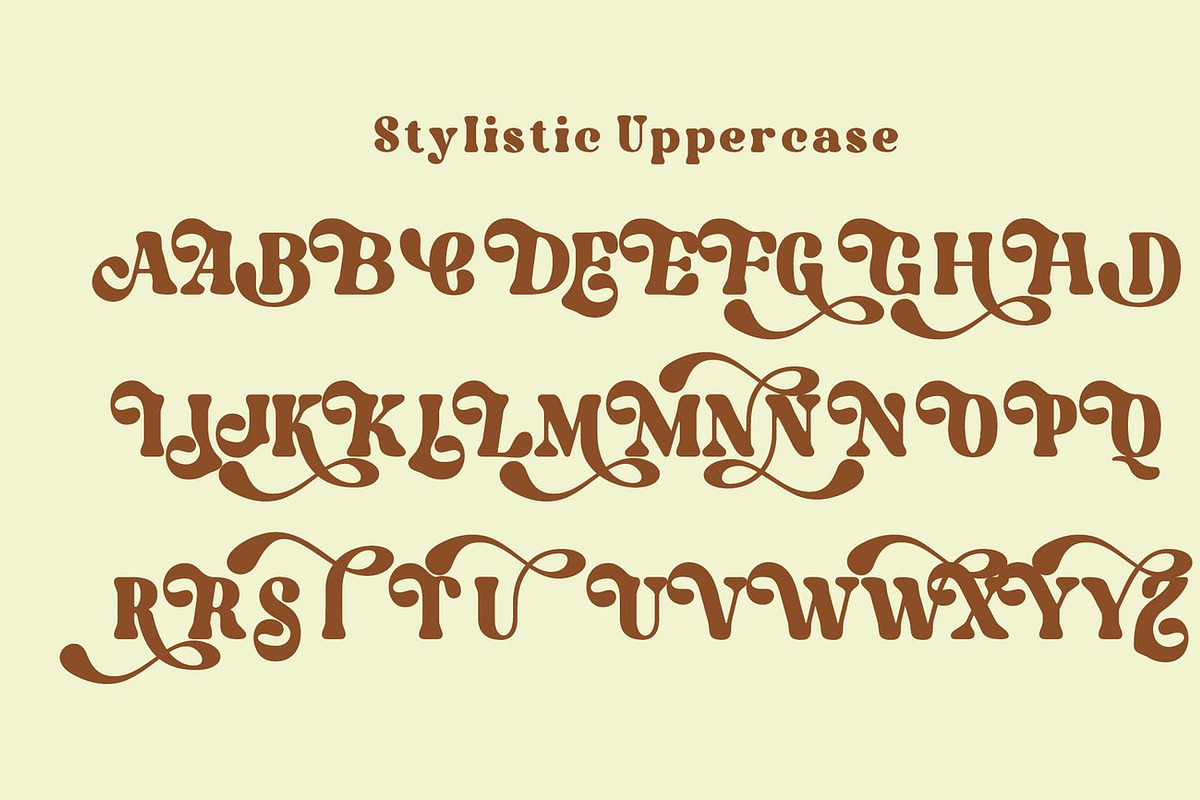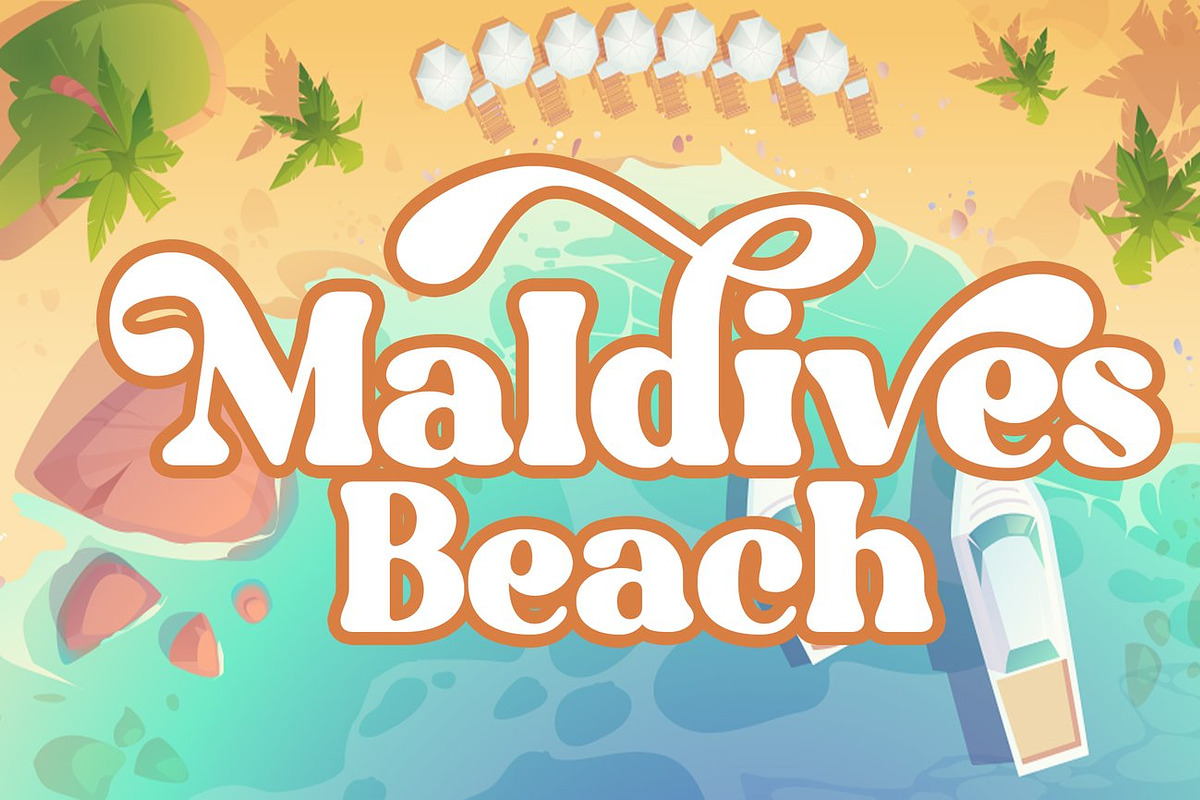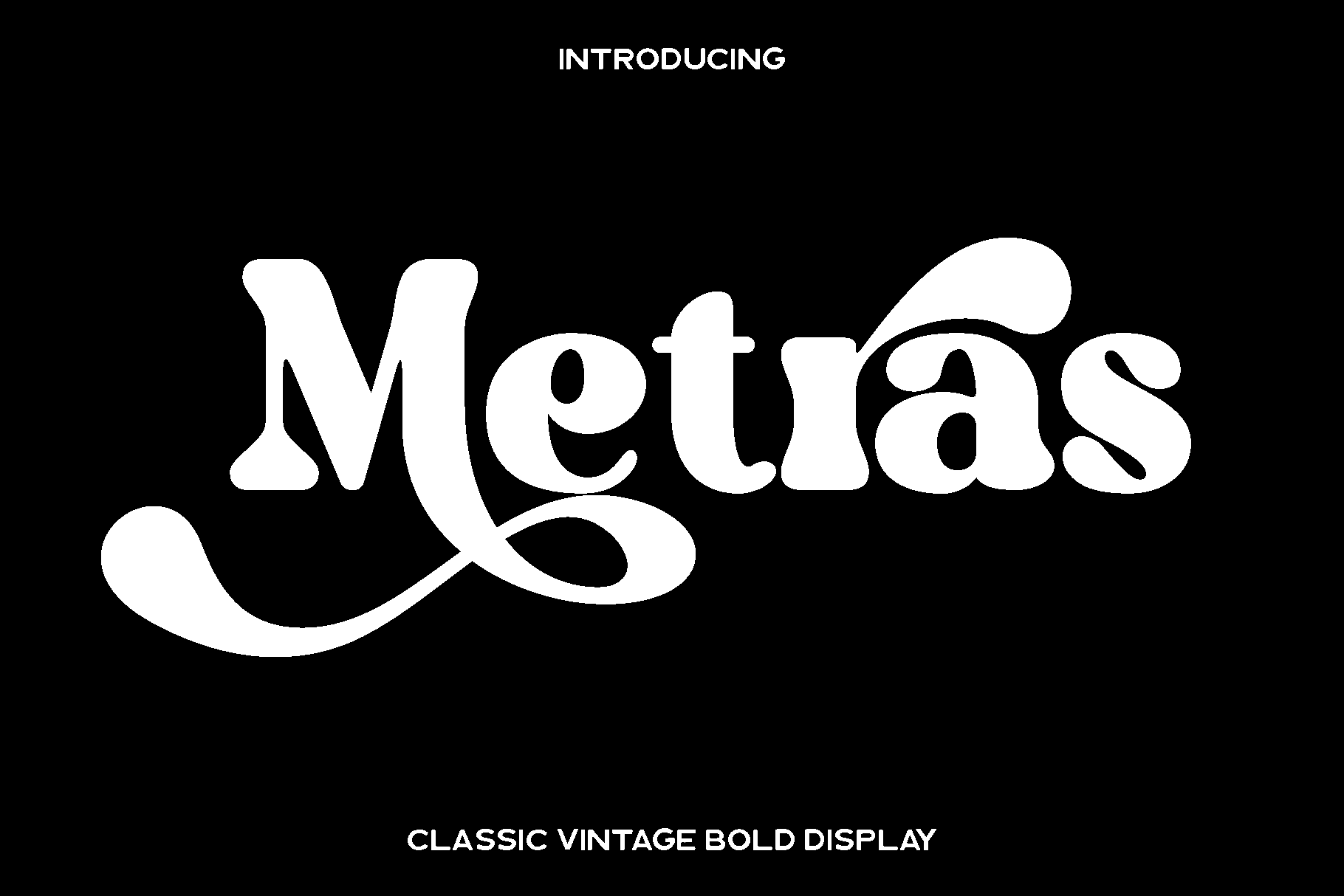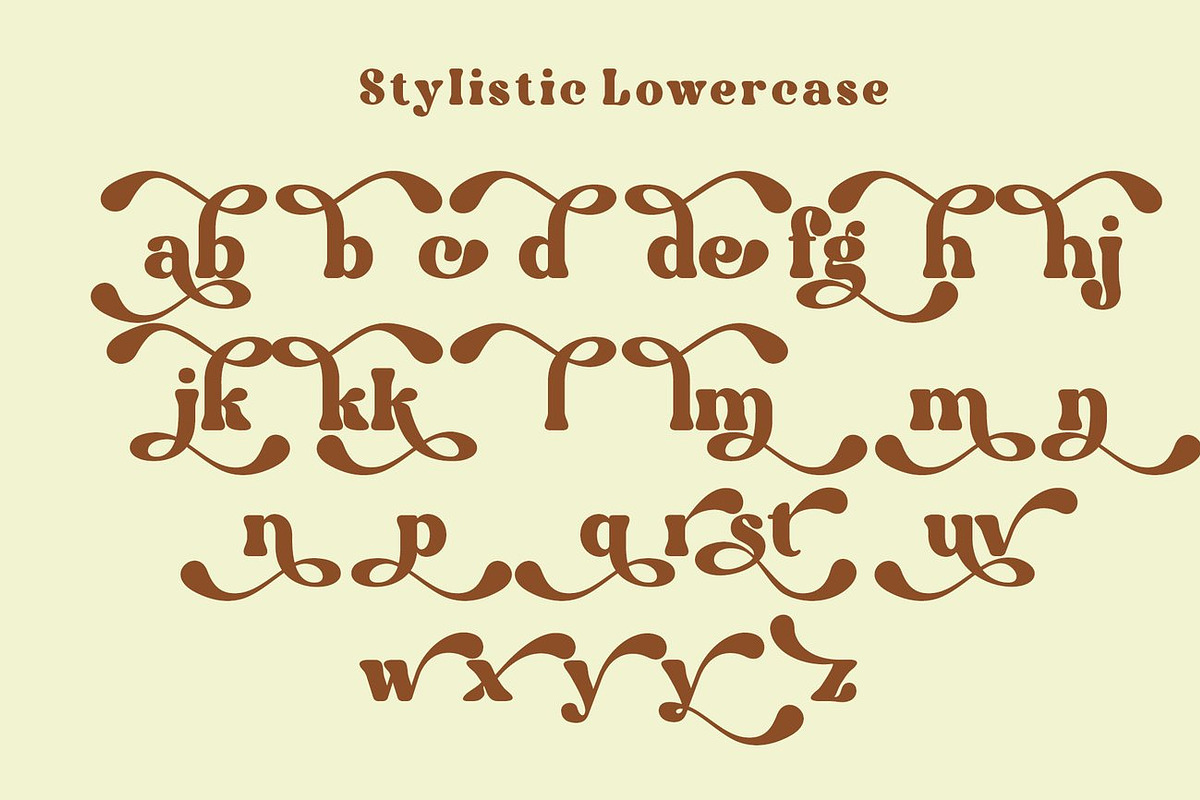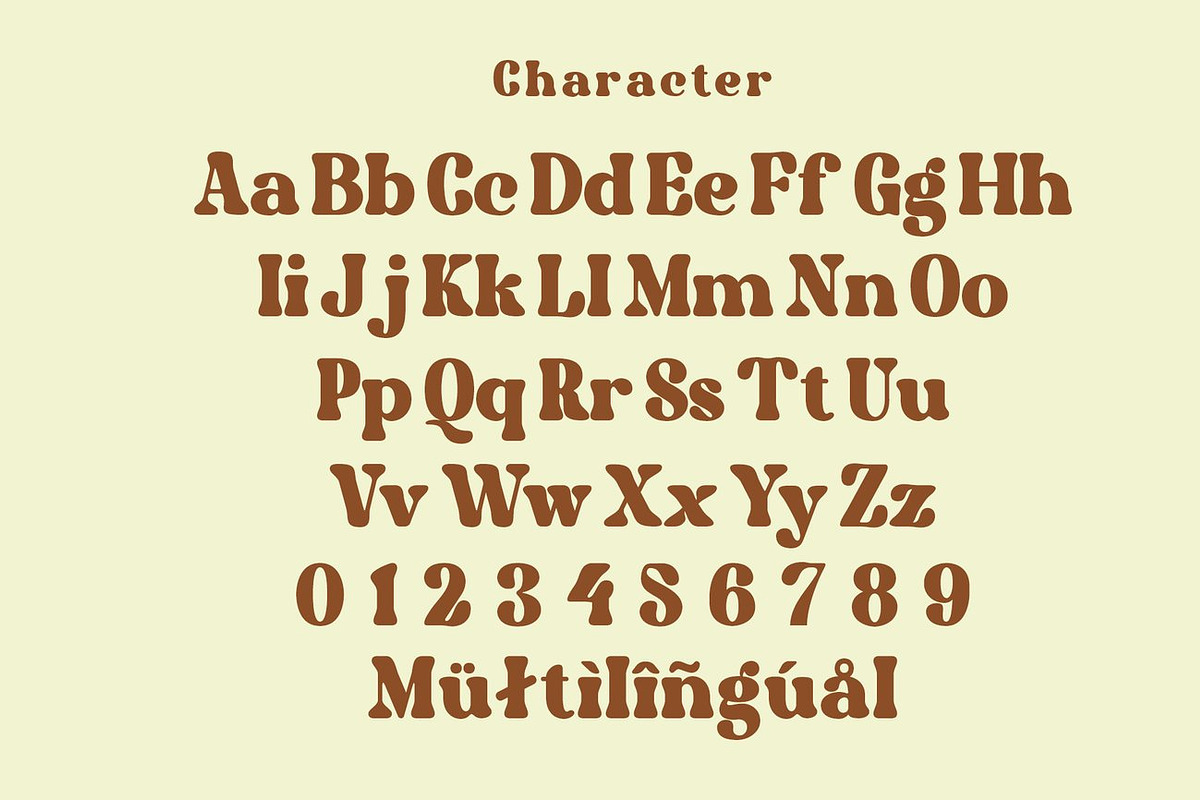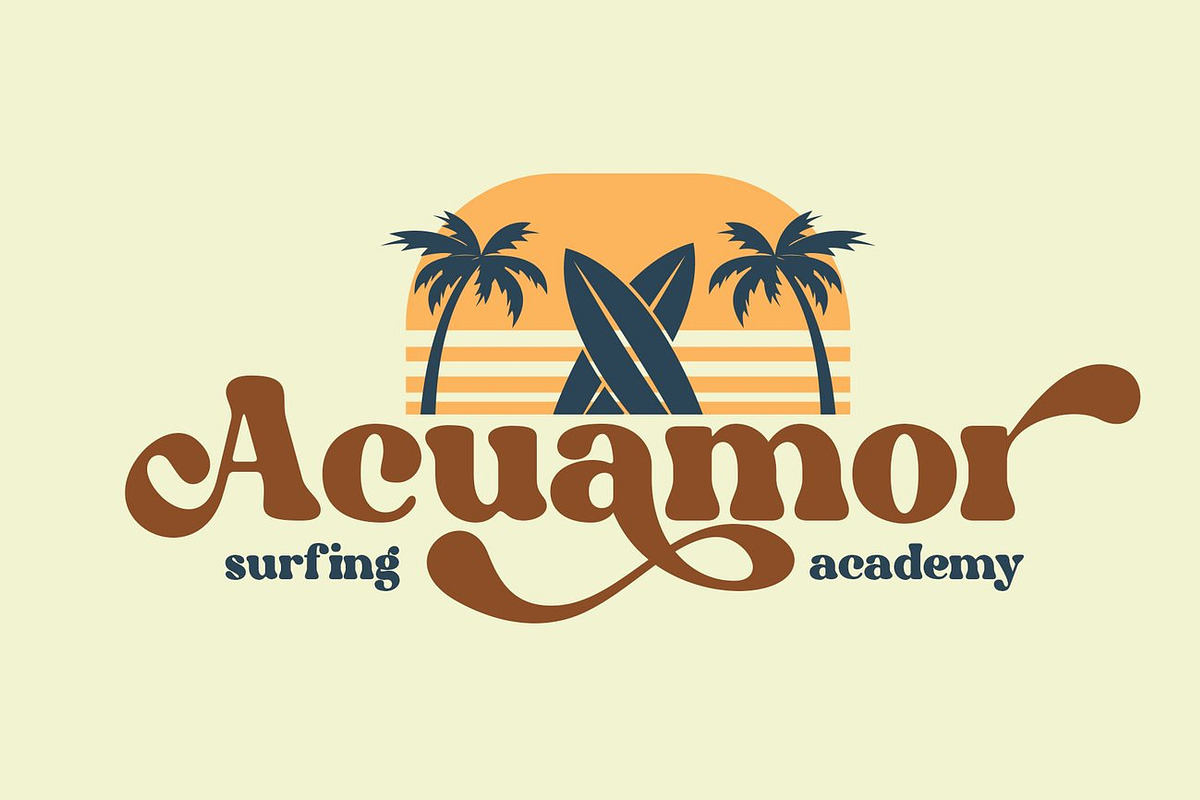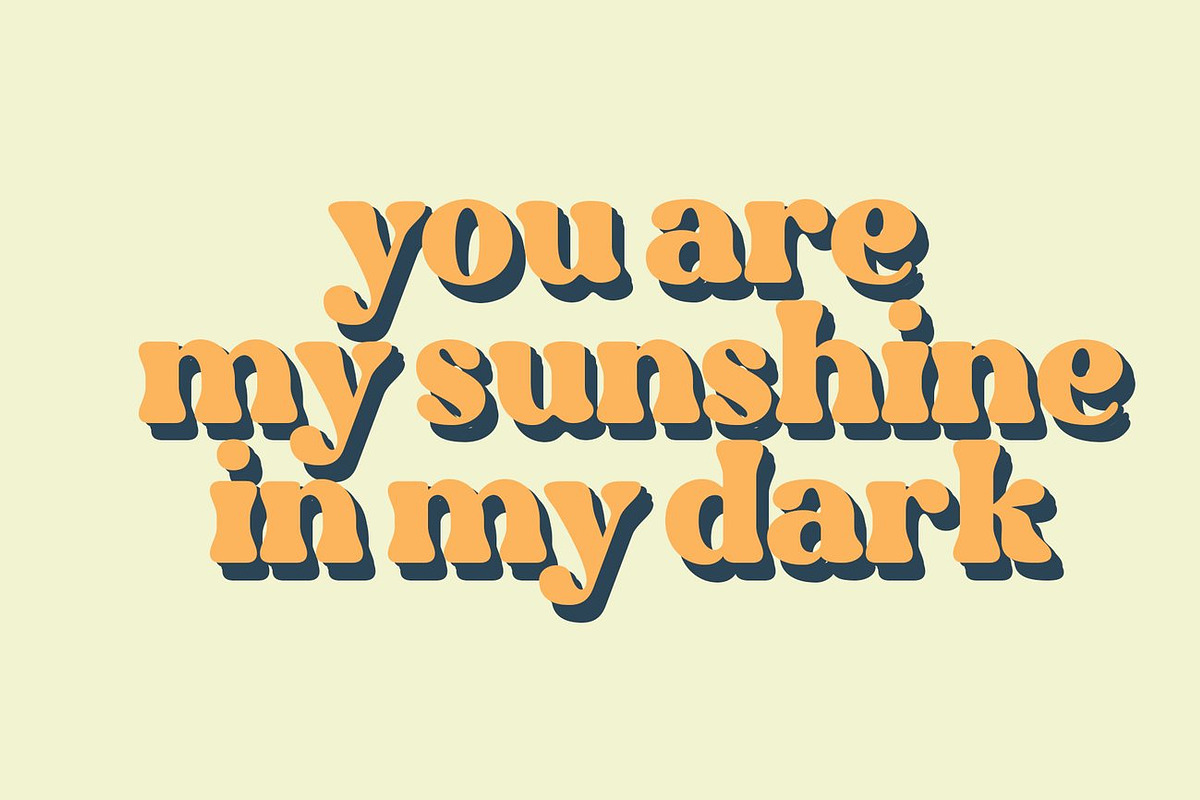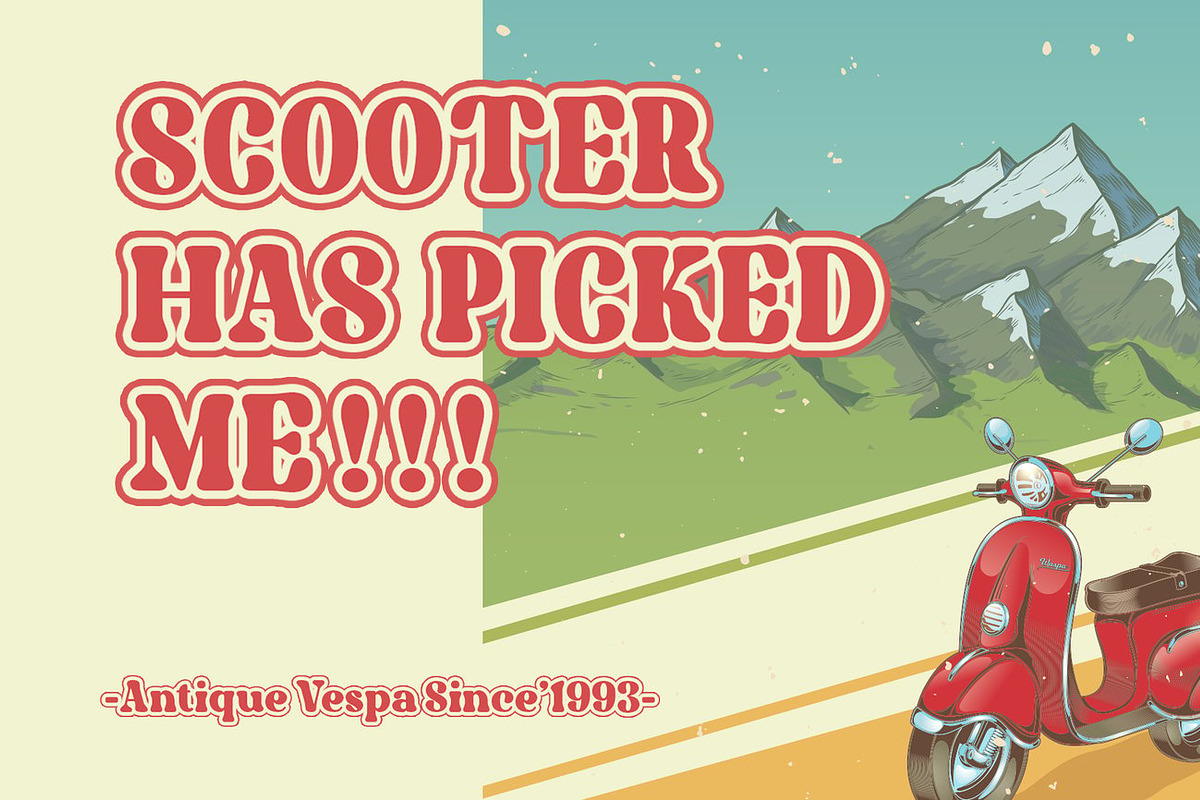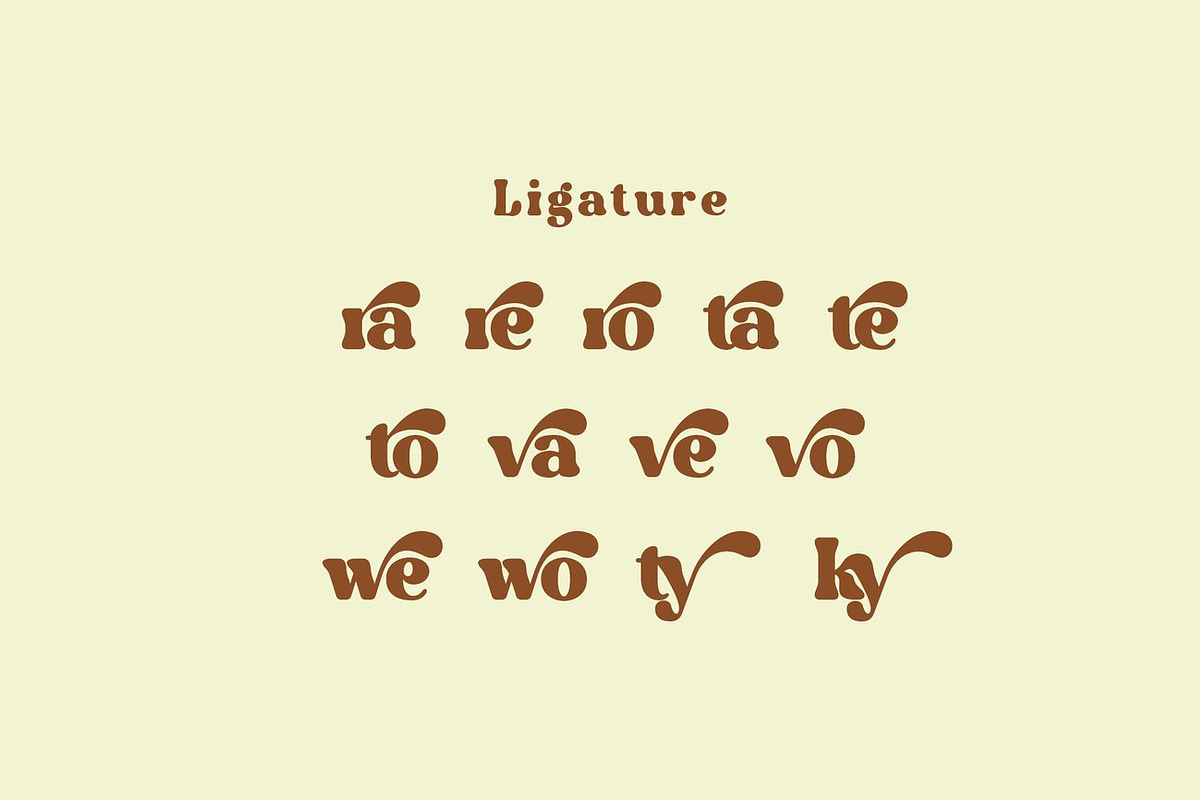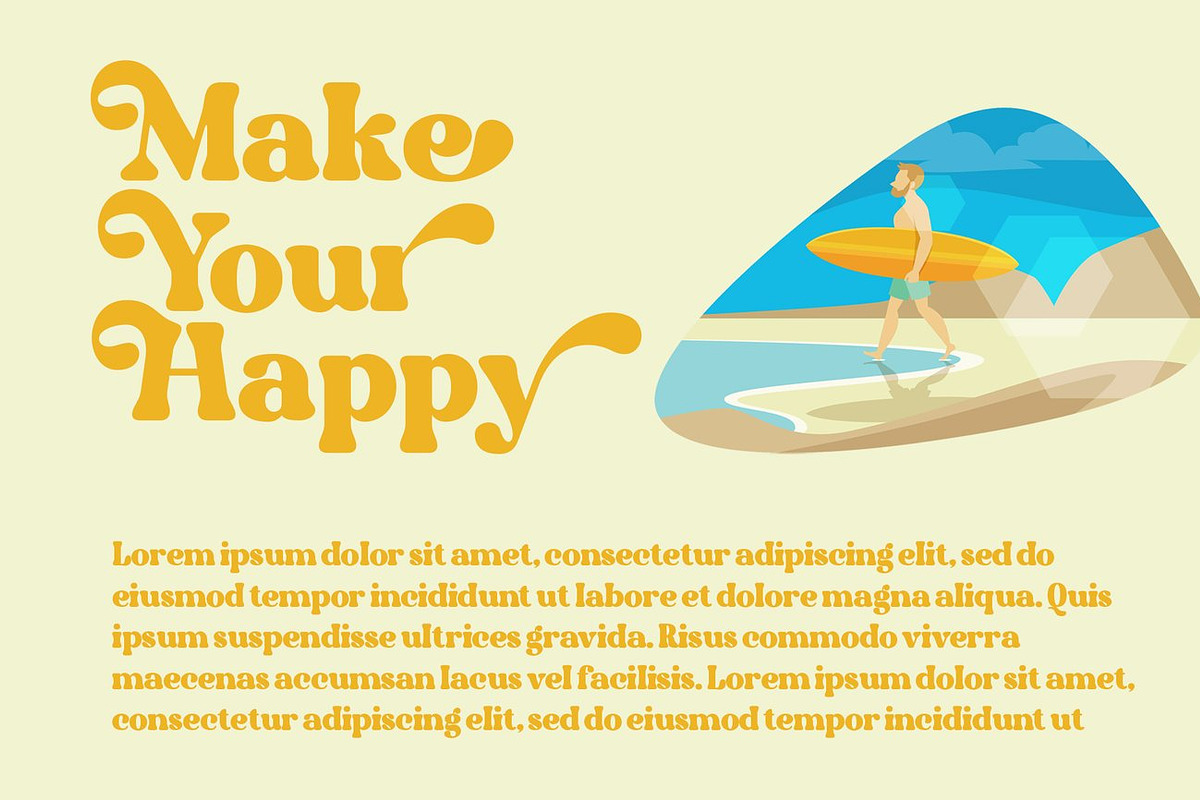
Metras - Classic Bold Font
Metras is a bold display font inspired by classic typography and timeless vintage design. Created to bring strong character and nostalgic charm into modern projects, Metras blends retro influence with solid letter construction that feels confident, expressive, and eye catching. Every glyph is carefully shaped to deliver a bold visual impact while maintaining balance and readability, making it a powerful choice for statement driven designs.
This font shines in branding, logos, posters, packaging, labels, apparel, signage, and editorial headlines. Metras feels bold, classic, and authentic, making it especially suitable for vintage themed projects, retro branding, craft products, music artwork, and bold marketing visuals. Its distinctive style helps designs stand out while communicating strength, heritage, and personality.
With a full set of uppercase and lowercase letters, numerals, ligatures, and stylistic features, Metras offers flexibility for creative exploration. Its multilingual support ensures it can be used confidently across global projects. Whether you are building a strong brand identity or crafting bold promotional materials, Metras brings a timeless display style that leaves a lasting impression.
Metras Display Font Features:
• Uppercase and lowercase characters
• Numerals and functional punctuation
• Ligatures and stylistic characters
• Multilingual support
Metras is the perfect display font for designers who want to combine vintage spirit with bold modern expression.